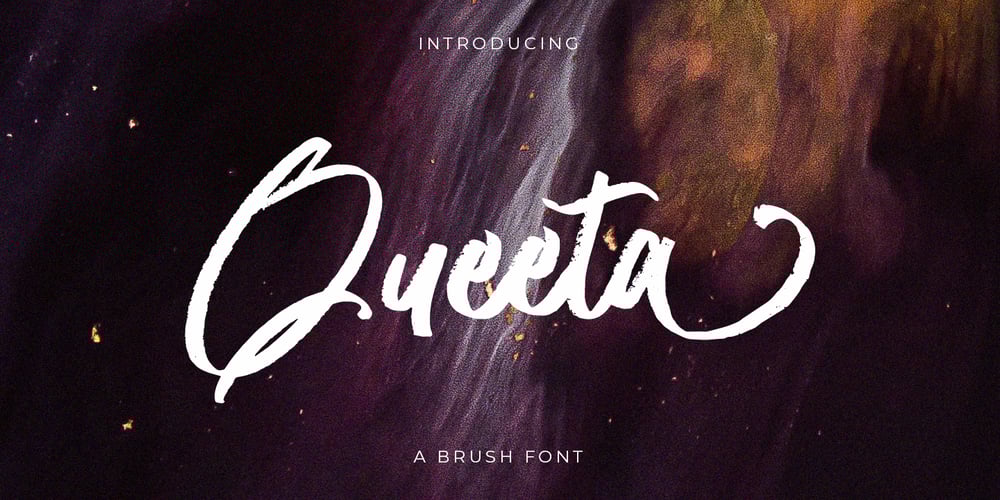
Queeta Brush Font Family was designed by Alam Syahril and published by Realtype. Queeta Brush contains 1 styles and family package options. Queeta inspired by natural brush typeface. Written in fast motion using a little bit dry brush pen. It will give you a fresh and modern design and will look beautiful with offer, magazine mode,offer logo, product packaging, headers, posters, merchandise, social media greeting cards & more.